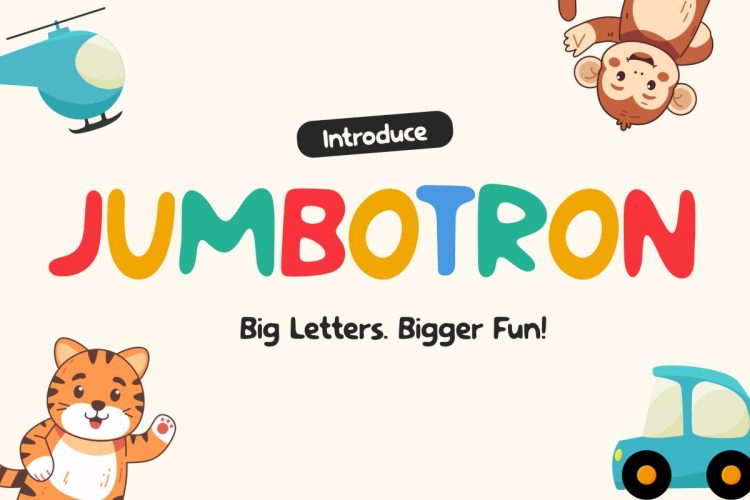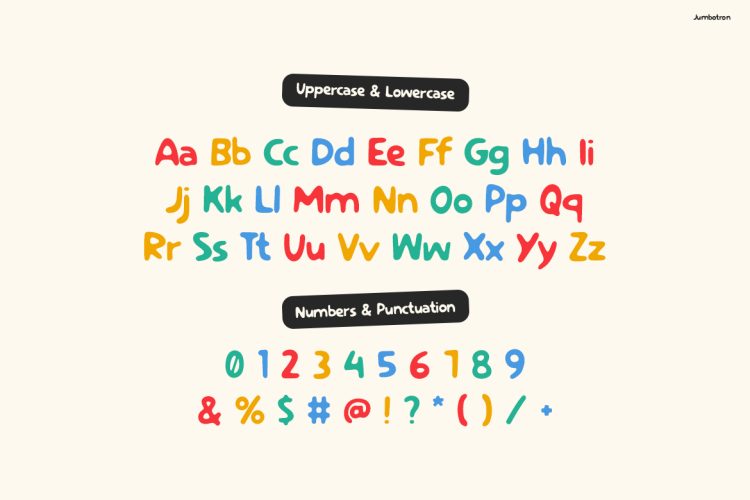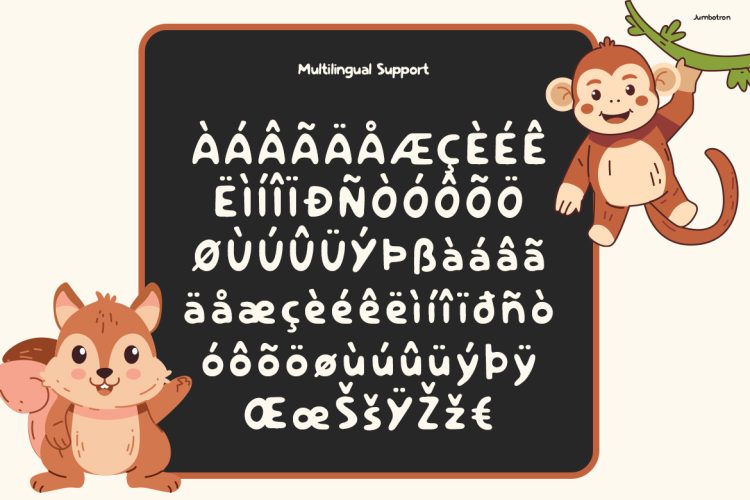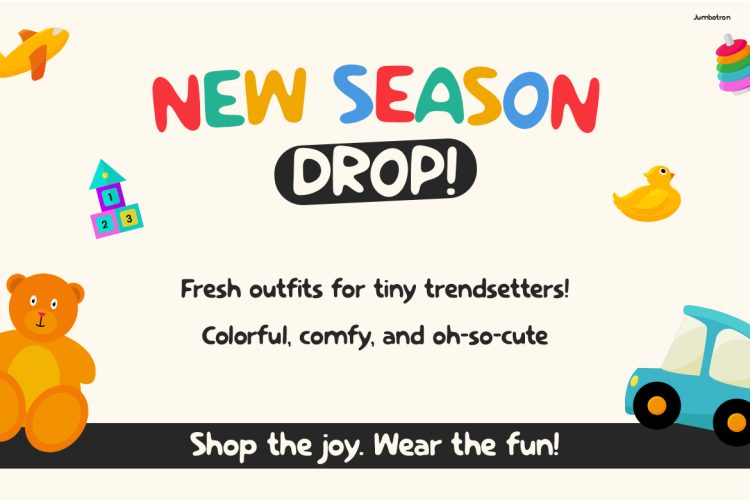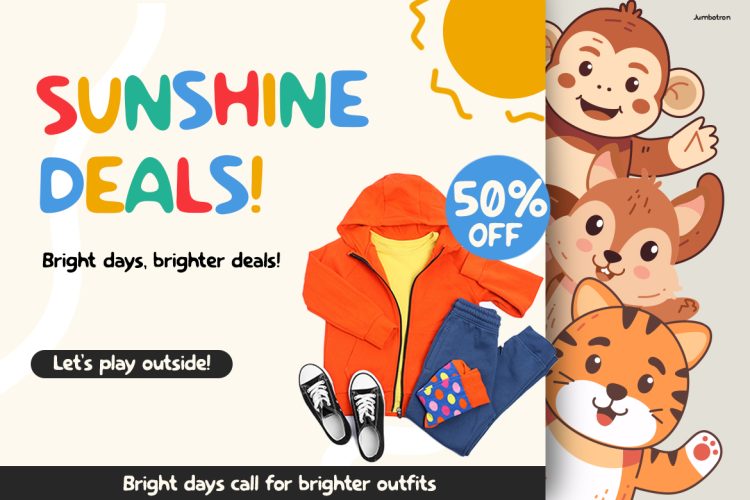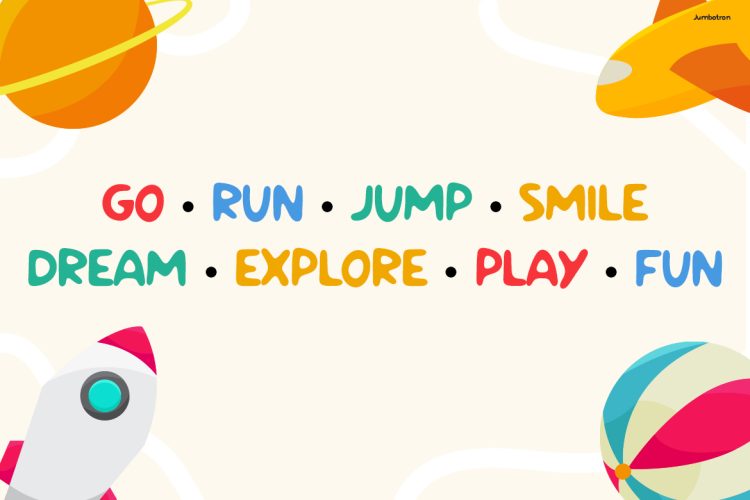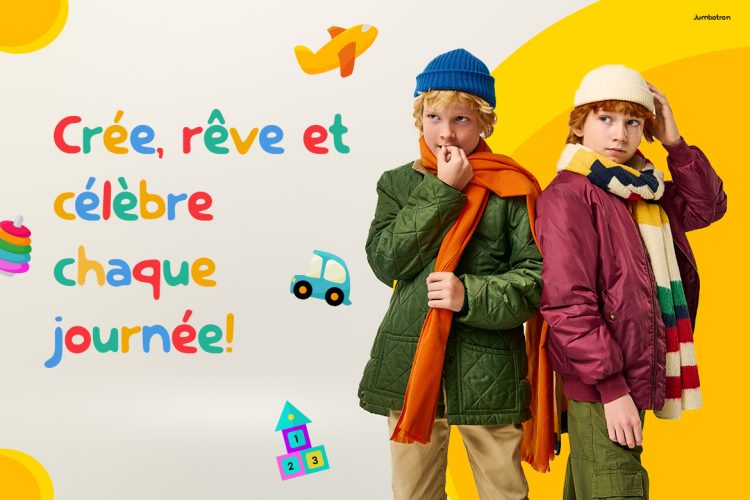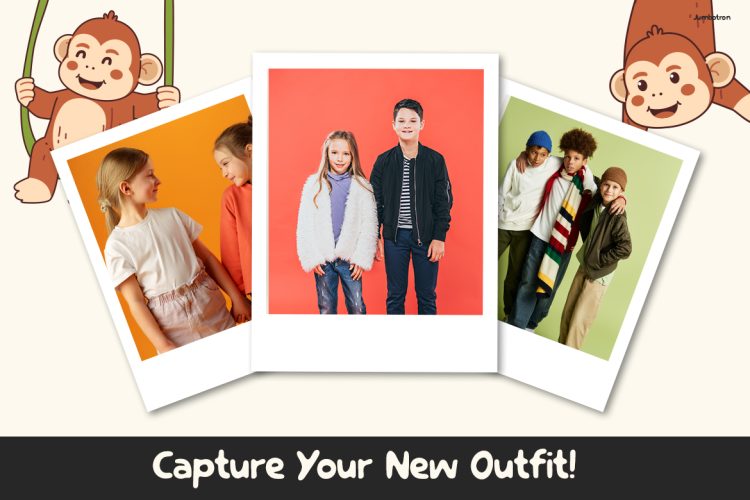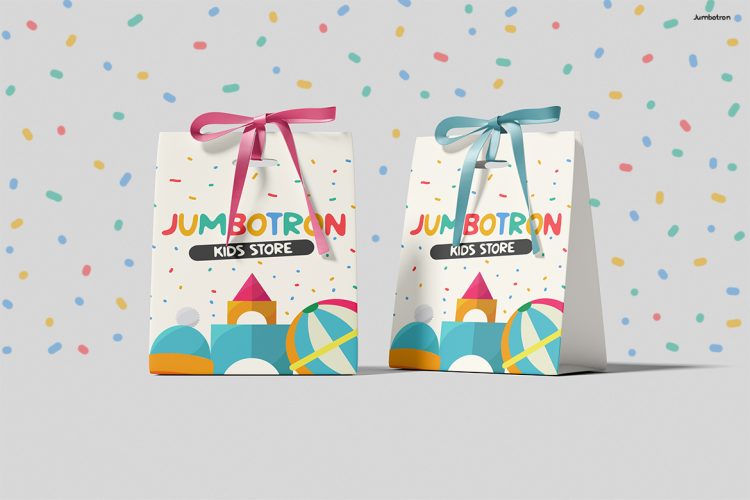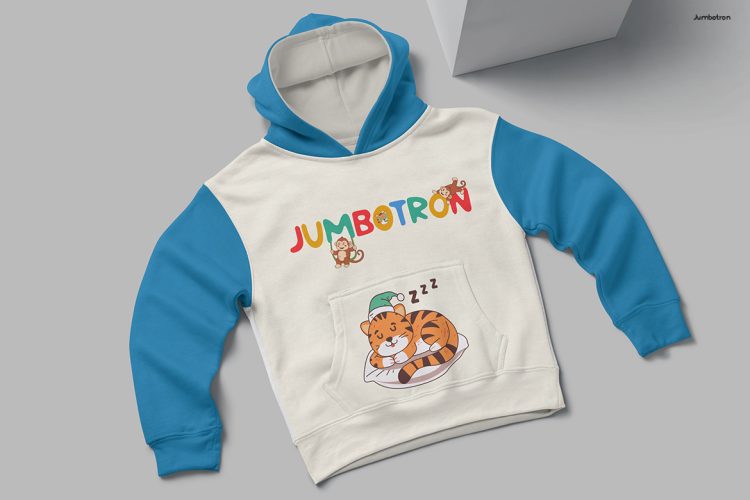
Jumbotron โ Playful Big Letter Kids Font Full of Fun
Kids Font Jumbotron is a bold and cheerful display font that instantly grabs attention with its big, playful letterforms. At first glance, it feels energetic, colorful, and full of personality. Moreover, the rounded shapes and bouncy style create a friendly and approachable look. Each character is designed to spark joy, so every word feels lively and expressive. In addition, the font carries a strong visual impact, which makes it perfect for standout designs. Because of its fun and vibrant aesthetic, Jumbotron turns simple text into an exciting visual experience. With support for 67 languages, it also allows creators to connect with kids worldwide without limits.
Kids Font Jumbotron combines bold structure with a fun-loving style. As a result, it works perfectly for eye-catching headlines and playful compositions. Furthermore, the font features smooth curves and thick strokes, which improve readability while keeping a cute appearance. In addition, its colorful and dynamic vibe fits well with modern kids-themed visuals. Whether you use it for posters, packaging, or social media, it always feels fresh and engaging. Therefore, this font helps your design stand out in a crowded space. Not only that, but it also adapts easily to both digital and print formats.
This font is ideal for graphic designers, illustrators, and content creators. Specifically, it suits childrenโs brands, toy packaging, and educational materials. Moreover, it works great for kids’ clothing, storybooks, and playful merchandise. In fact, it is perfect for anyone who wants to create fun, bright, and memorable designs. Because of its friendly style, it connects easily with young audiences. So, if your project needs a joyful and bold visual tone, Jumbotron is a strong choice.
So, bring your ideas to life with Jumbotron and create designs that feel fun, bold, and impossible to ignore!